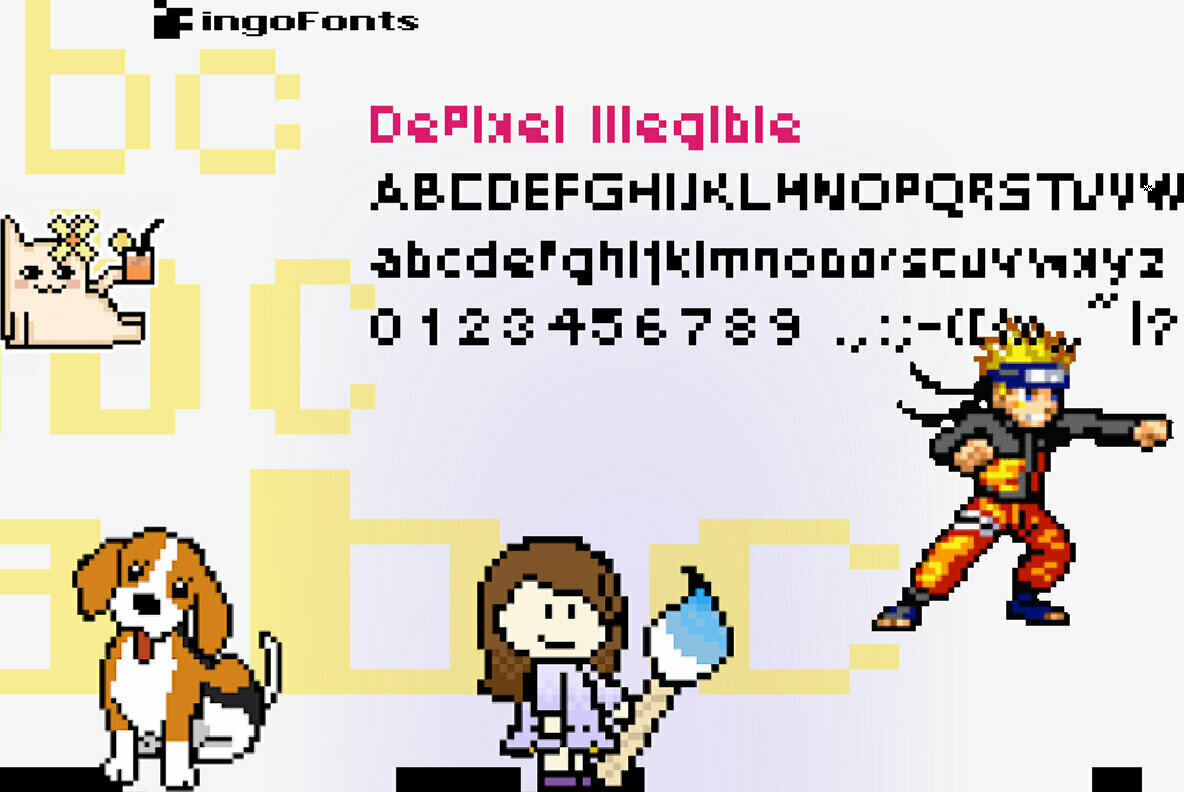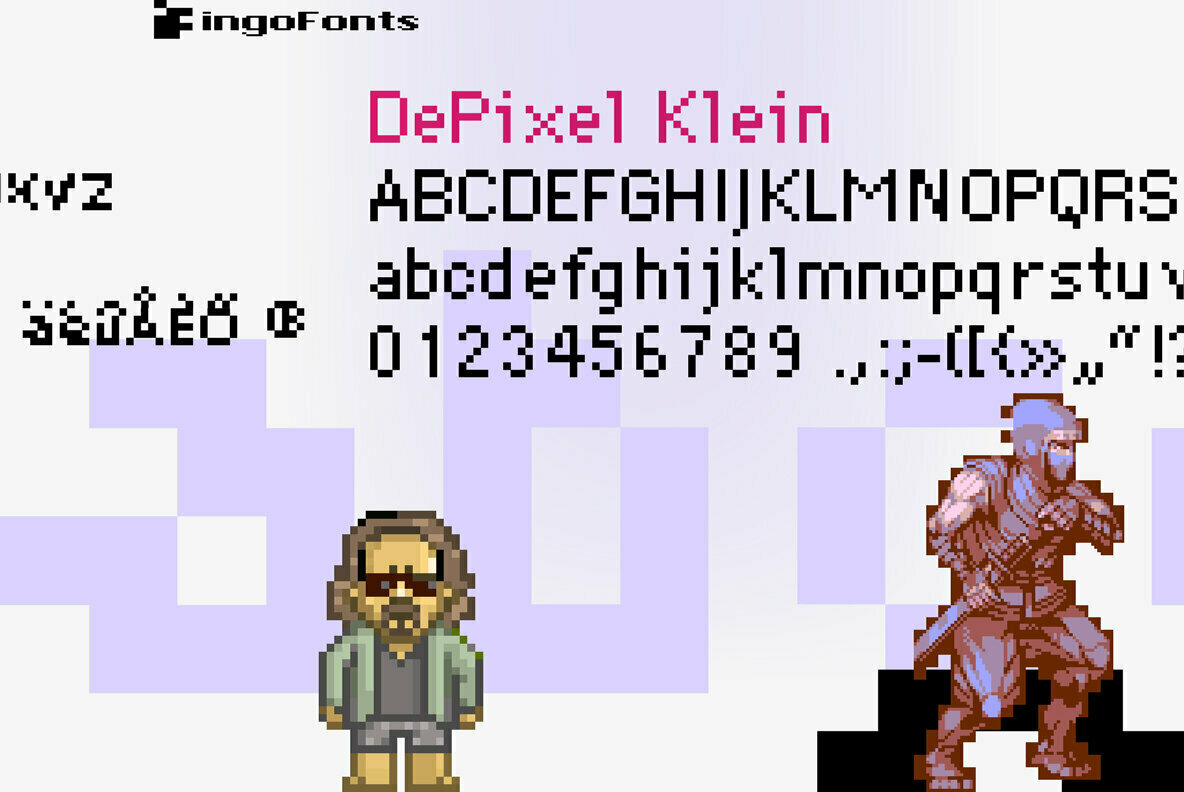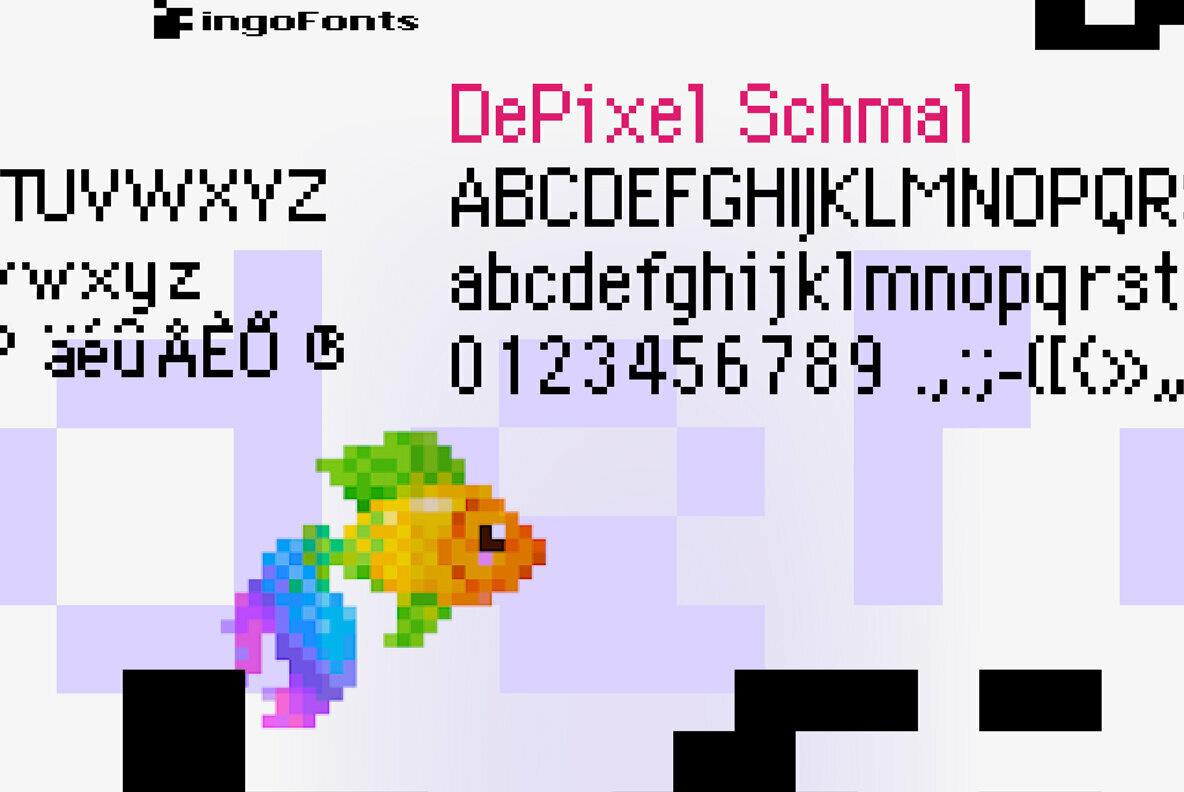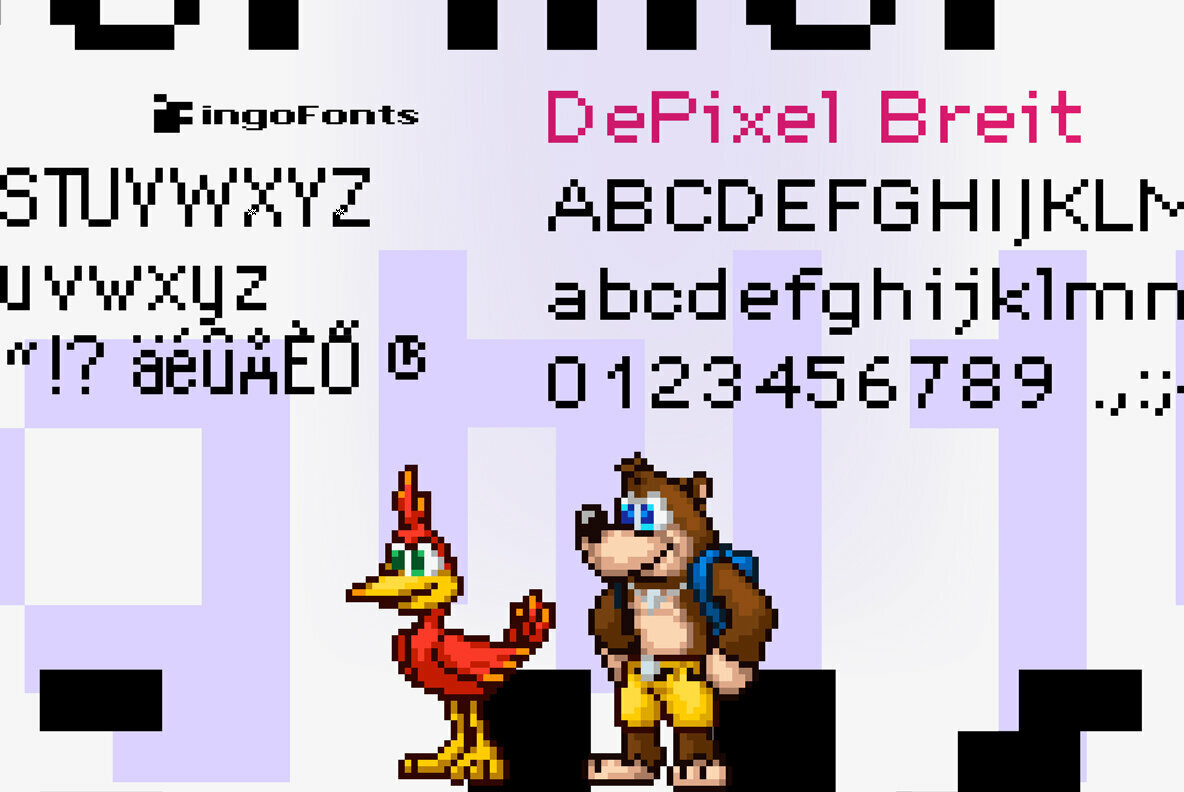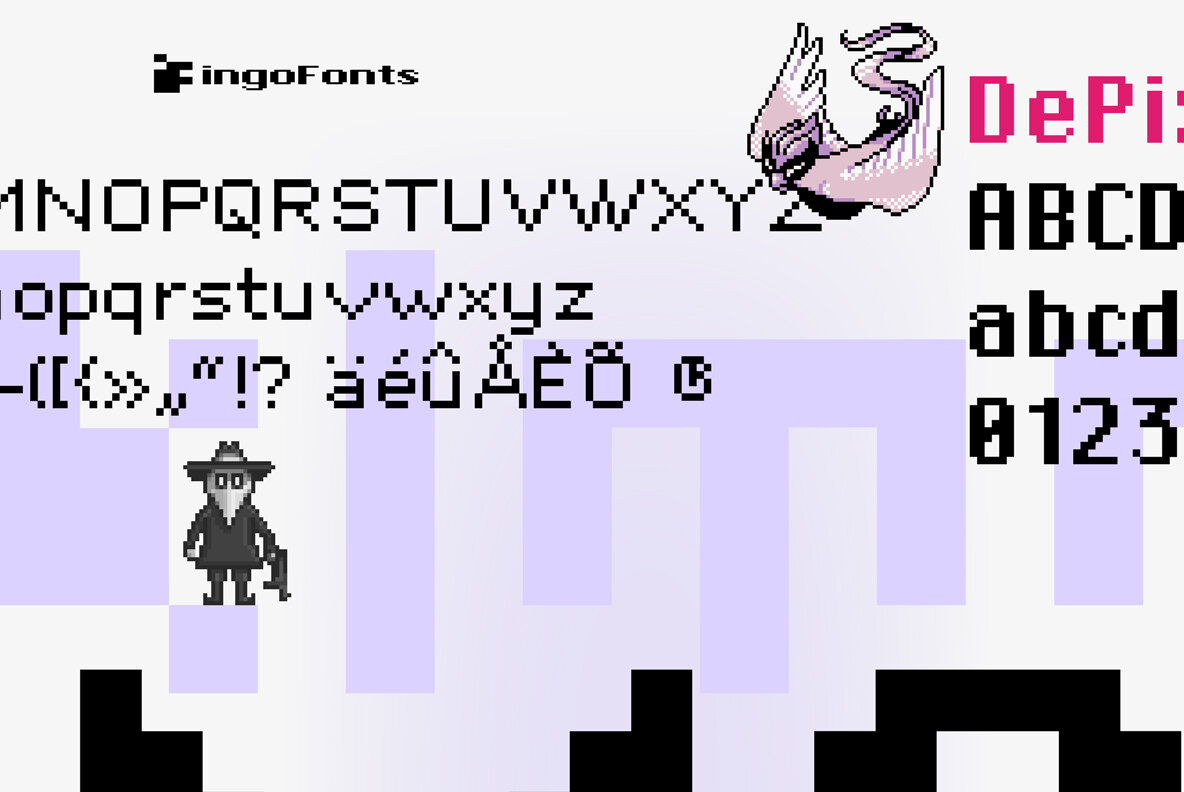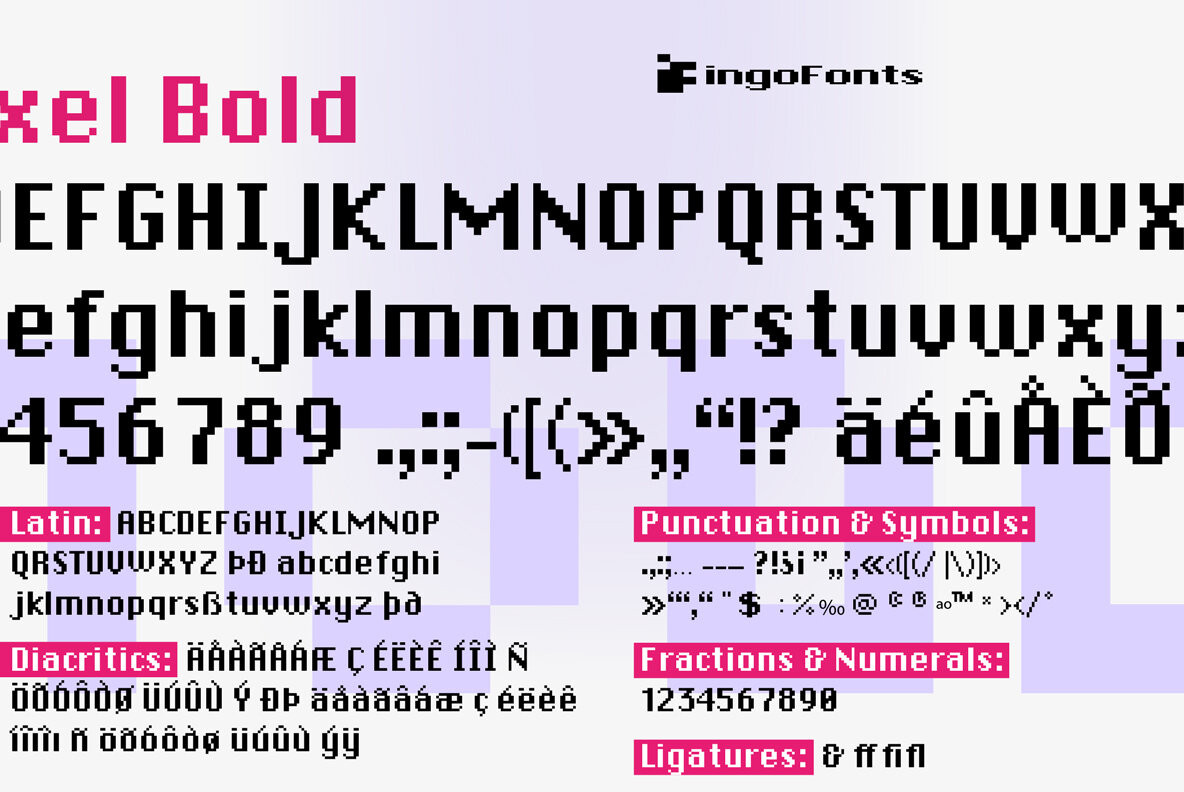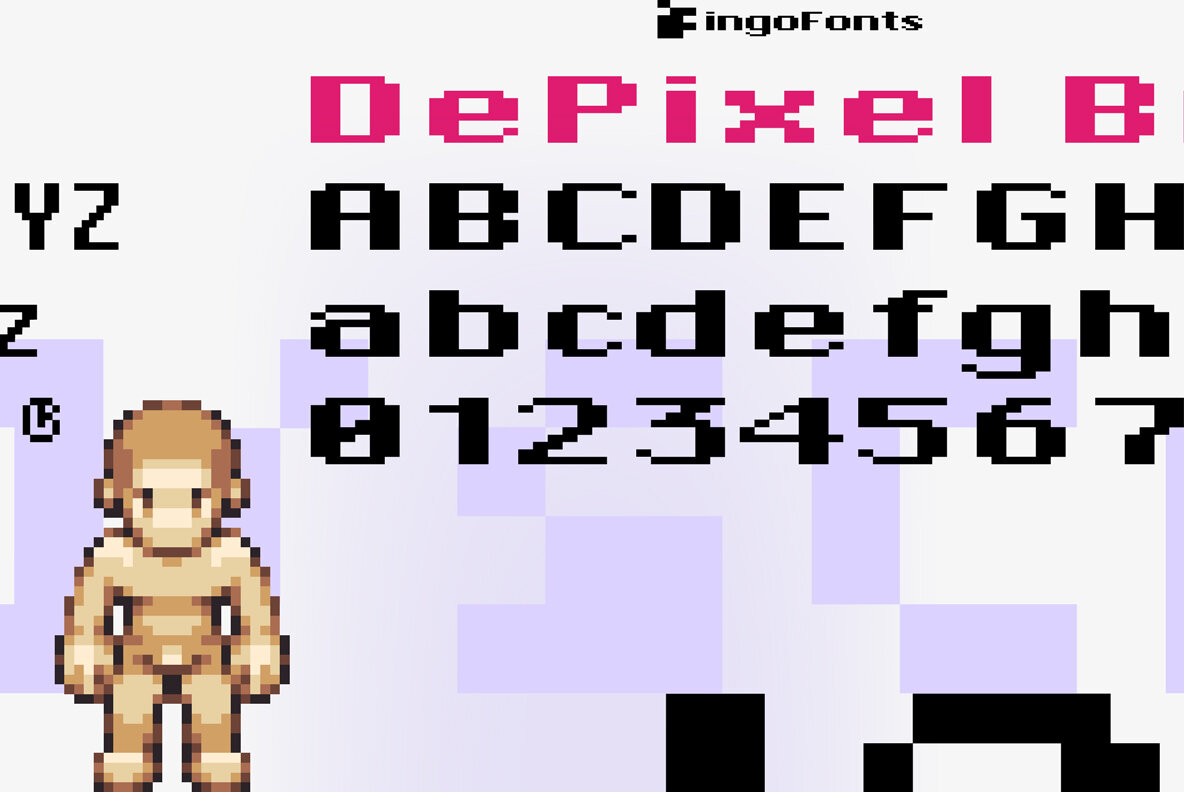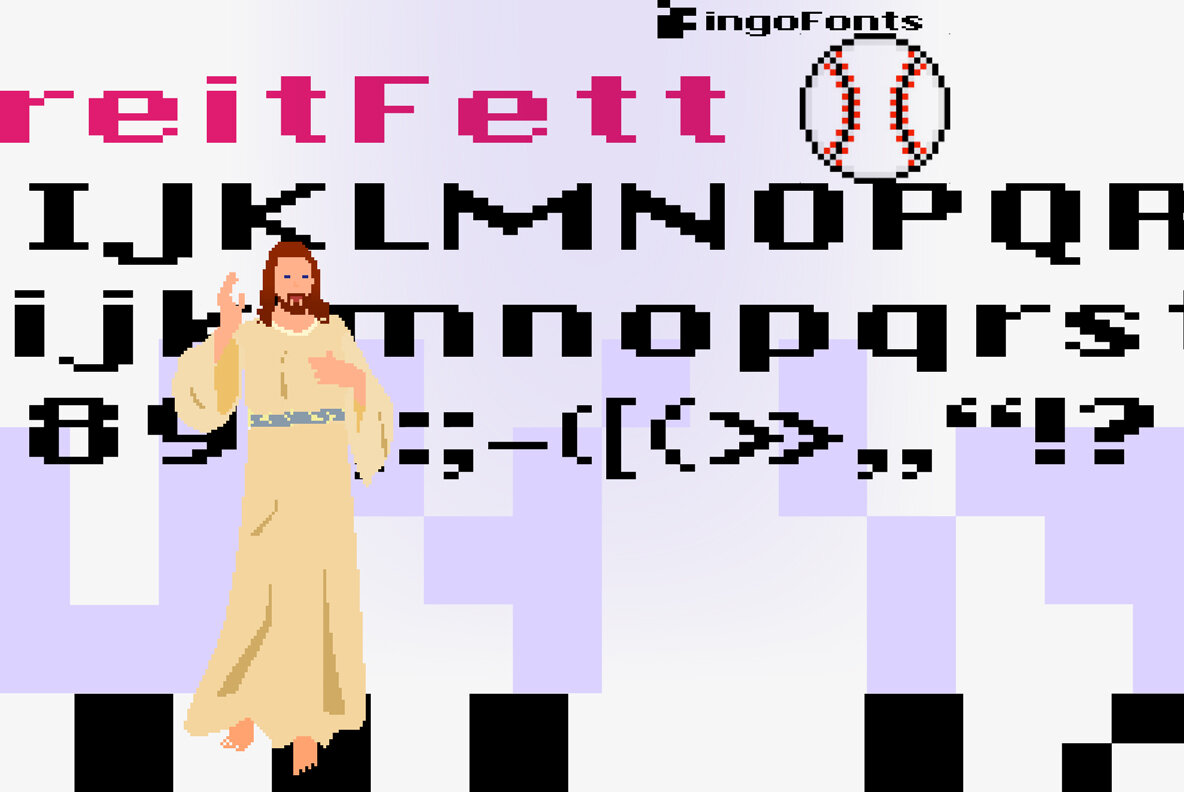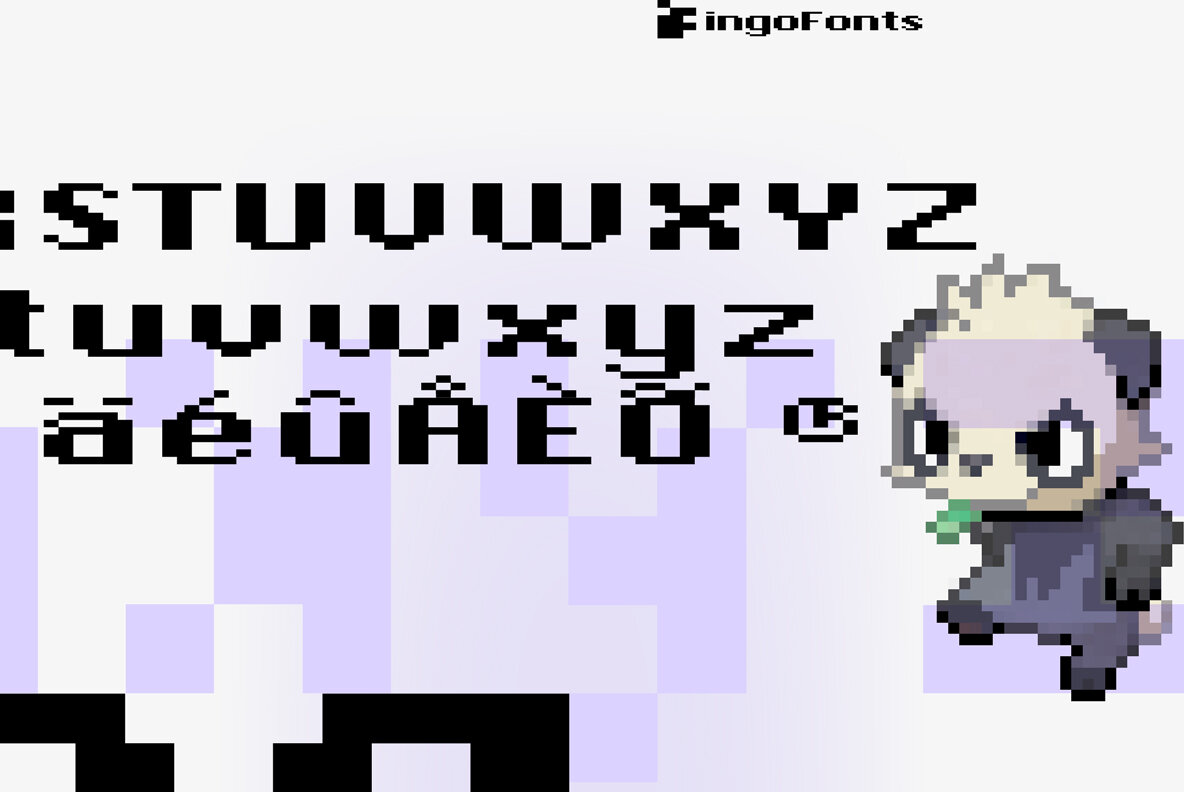
DePixel Font
Nothing more than Apple’s renowned system font ”Geneva“ in the bit map representation, but as a PostScript font; aliased like ”Geneva“ in 9 or 10 points, or even in resolutions that are too small, that is, under 8 points; ideal for ”pixely“ topics.
An anachronism in the digital age: While the whole world speaks of progress, the font on the monitor has only ”progressed“ into a non-pleasant-to-read conglomeration of pixels. Each object on a monitor is displayed by lining up individual pixels. These pixels are so tiny, that they are hardly perceivable. The more pixels per surface unit (that means, the higher the resolution), the more the picture perceived by the eye merges into a sharply defined unit.
DEPIXEL is based on the monitor fonts ”Geneva“ and ”Chicago,“ developed by Apple Computer. It simulates the configuration of individual pixels into letters. Thus, a font emerged which, regardless of size, can be recognized by the composition of a few individual pixels.
ILLEGIBLE DEPIXEL came about as a result of exaggerating the pixel effect. As with the other versions, it is composed of individual pixels. But here the cap height only amounts to 5 pixels and the x-height merely 4 pixels. Furthermore, this typeface shows the well-known effect from the Web of a font design which is too small and makes text appear almost illegible. ILLEGIBLE DEPIXEL is not really illegible; its forms were "destroyed" deliberately.
In comparison, a good legible alphabet must be at least 9 pixels high: 5 pixels for the mean height and 2 pixels each for the extenders. With its proportions, DEPIXEL KLEIN (small) meets these requirements.
DEPIXEL SCHMAL (thin) stretches out to 6 pixels on the main line whereas the upper and base overhang amount to 2 pixels.
DEPIXEL BREIT (expanded) was developed by expanding the letters by one pixel. In contrast to the ”normal“ versions, the basis for further versions was Apple’s ”Chicago“ font. By means of doubling the width of the stems, an obviously bolder and larger font was created using the same basic pixel size.
Theoretically any font can be ”digitalized.“ This style of reduction to the smallest element of an engineered font charms with its apparent contradiction of the most exact vector drawing technically possible and the primitive construction from ”building blocks.“